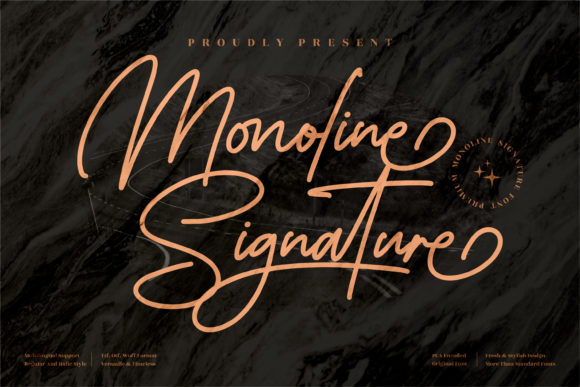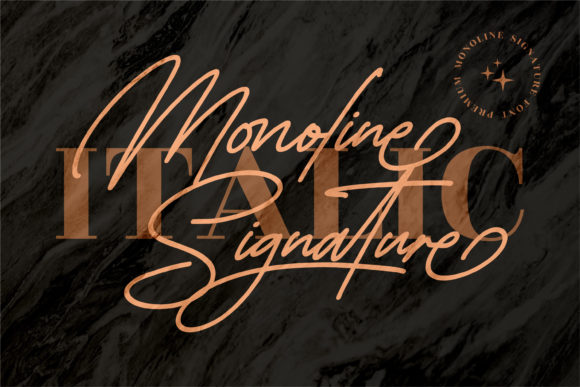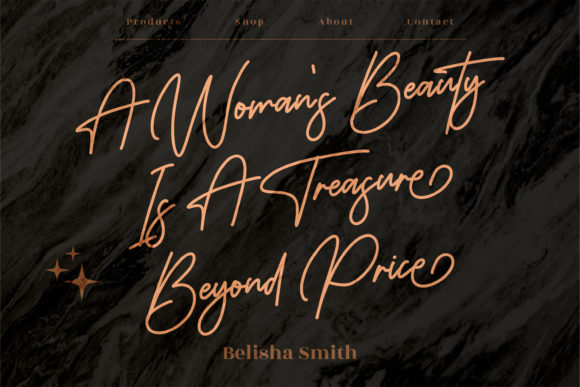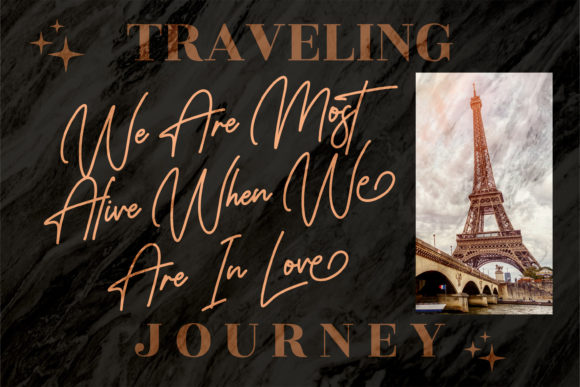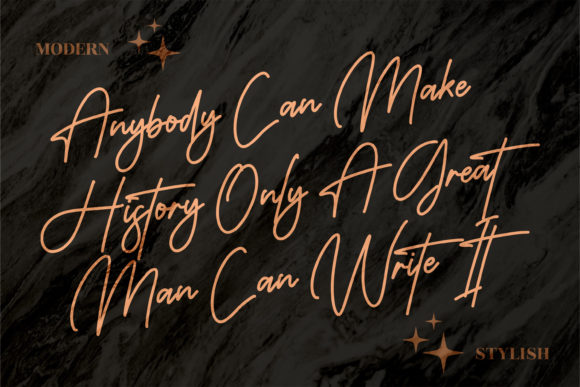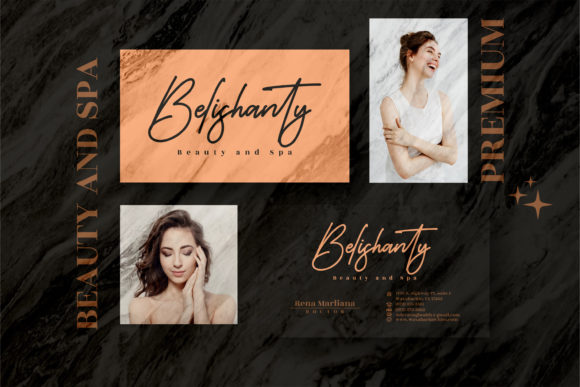
Monoline Signature Font
Monoline Signature is a simple and flowing handwritten font. This adaptable font will look great on a variety of design ideas. It will add a fun and friendly touch to each of your projects!